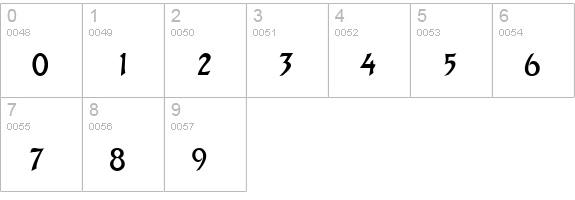
AdaMediumMF Font Details
AdaMediumMF is a versatile and modern font that strikes the perfect balance between elegance and readability. Its medium weight makes it ideal for a wide range of design projects, from branding to editorial layouts. The clean lines and subtle curves of AdaMediumMF exude sophistication and professionalism, making it a perfect choice for both digital and print designs. What sets AdaMediumMF apart is that it is available for free download at FontsMarket.com. This means that you can easily access this high-quality font without any cost, making it a valuable addition to your font library. Whether you're working on a personal project or a professional assignment, AdaMediumMF offers a timeless aesthetic that will elevate your designs to the next level. Download AdaMediumMF today and see how it can enhance your creative projects with its sleek and contemporary style.